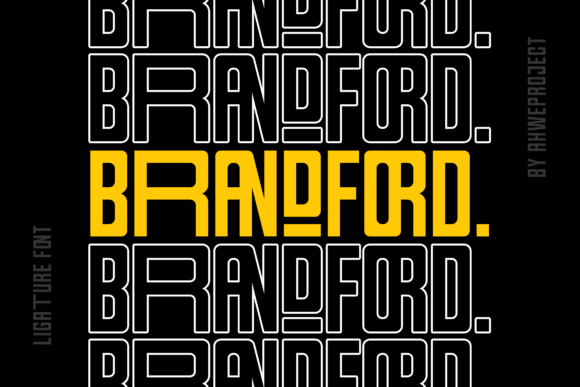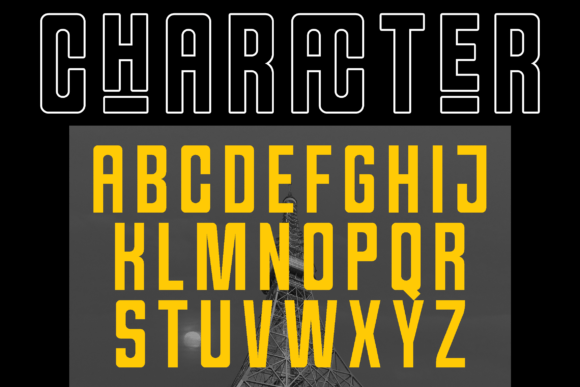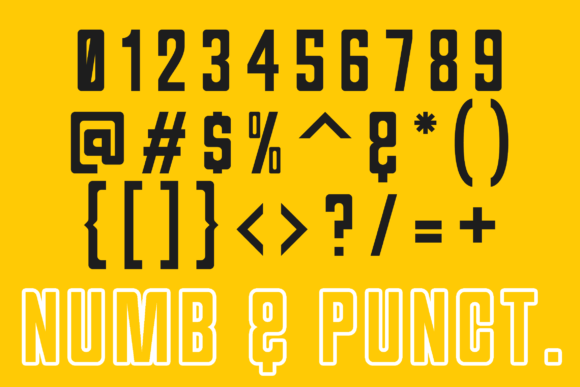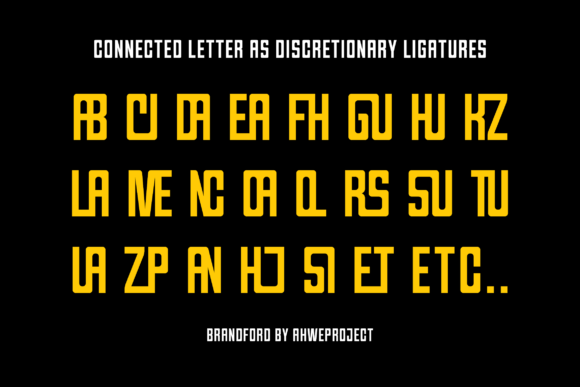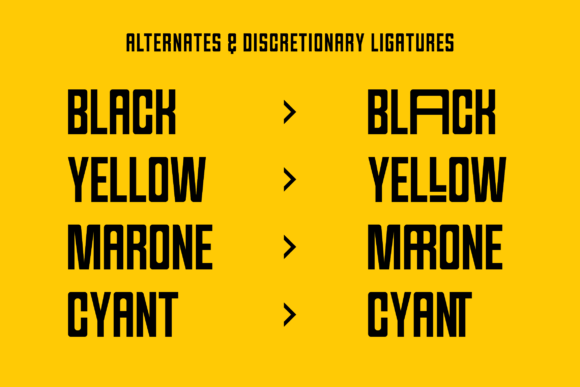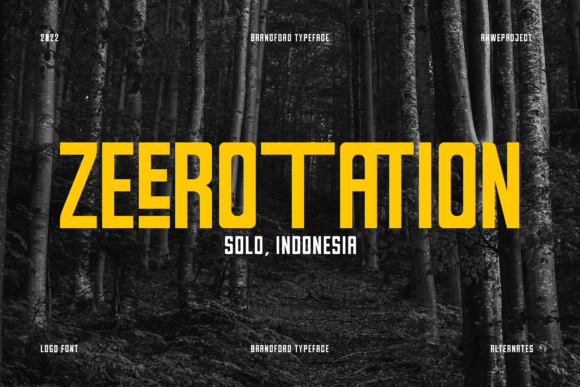
The Birth of a Bold Design
Have you ever been brainstorming a new project and suddenly, a spark of creativity hits you like a bolt of lightning? That’s exactly what happens when you need a font that screams “I’m here to make a statement!” For designers like you, finding the perfect font can be a game-changer. It’s the difference between a logo that blends into the background and one that grabs attention from a mile away.
Enter the Brandford Font, a purposefully crafted sans serif font that’s designed to shine in large point sizes. But what really sets it apart is its versatility – it looks just as great in small point sizes too! With its extensive range of ligatures, alternates, and other features, you’ll have endless options to make your project stand out from the rest.
Key Features of Brandford Font
- Font Family: Brandford Font is a sans-serif font family.
- Font Size: Supports font sizes ranging from 8pt to 72pt.
- Resolution: Optimized for screen resolutions up to 300 DPI.
- Unique Characteristics: Features a clean, modern design with a unique blend of geometric and organic shapes, making it suitable for a wide range of applications, including corporate branding, advertising, and editorial content.
- Character Set: Includes a comprehensive character set, including Latin, Cyrillic, and Greek alphabets, as well as a range of punctuation and symbol characters.
- Font Styles: Available in multiple font styles, including Light, Regular, Bold, and Extra Bold.
Brandford Font Review
Overall, I have mixed feelings about the Brandford Font. Let’s dive into what works well and what doesn’t.
- Neutral and clean design aesthetic, perfect for corporate and business settings.
- Highly legible, making it suitable for body text and reading large amounts of content.
- Works well on digital platforms, including screens and web pages.
- Classic and timeless feel, giving it a sense of professionalism.
- Lacks personality and uniqueness, making it feel generic and unmemorable.
- May not be the best choice for creative or artistic projects, where a more expressive font is desired.
- Some users may find it too safe or boring, lacking the edge and character of other fonts.
In conclusion, the Brandford Font is a solid, reliable choice for many applications. However, it may not be the best fit for projects that require a bold, eye-catching, or unique design aesthetic. Overall, it’s a good, but not great, font.
For best results, use Brandford Font in headings and titles to create a professional and elegant look.
For best results, use Brandford Font in combination with other elegant fonts to create a sophisticated look.
For best results, use Brandford Font in headings and titles to create a professional and elegant look.
Brandford Font is ideal for:
- Menus and brochures
Alternatives to Brandford Font for Designers
Playfair Display is a luxurious and elegant serif font, perfect for high-end brands and luxurious products. It’s ideal for use in headings, titles, and other display typography. Compared to Brandford Font, Playfair Display has a more refined and sophisticated feel, making it suitable for premium brands.
Great Vibes is a modern and elegant script font, ideal for use in headings, titles, and other display typography. It’s perfect for brands that want to convey a sense of sophistication and elegance. Compared to Brandford Font, Great Vibes has a more fluid and organic feel, making it suitable for brands that want to add a touch of personality.
Courier Prime
Courier Prime is a clean and modern sans-serif font, perfect for use in body text and other display typography. It’s ideal for brands that want to convey a sense of simplicity and clarity. Compared to Brandford Font, Courier Prime has a more minimalist and utilitarian feel, making it suitable for brands that want to focus on function over form.
Alegreya
Alegreya is a modern and elegant serif font, perfect for use in body text and other display typography. It’s ideal for brands that want to convey a sense of sophistication and elegance. Compared to Brandford Font, Alegreya has a more refined and versatile feel, making it suitable for a wide range of brands and applications.